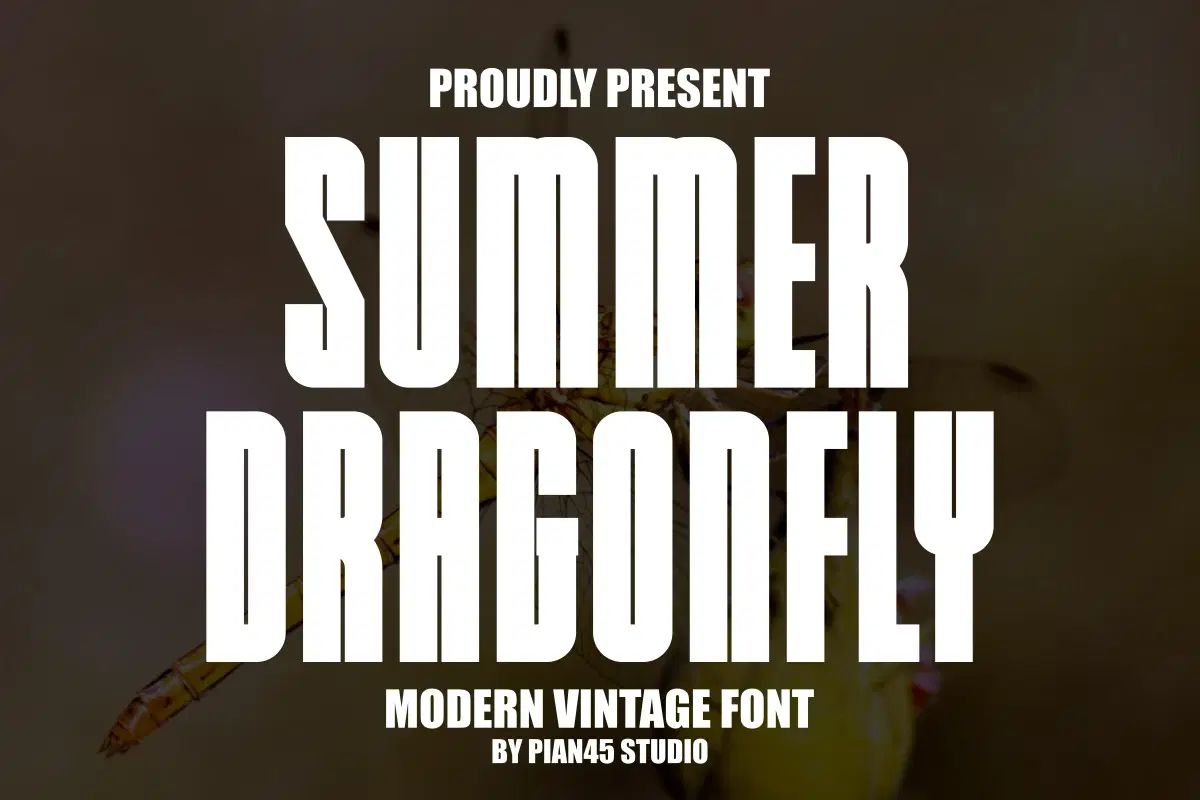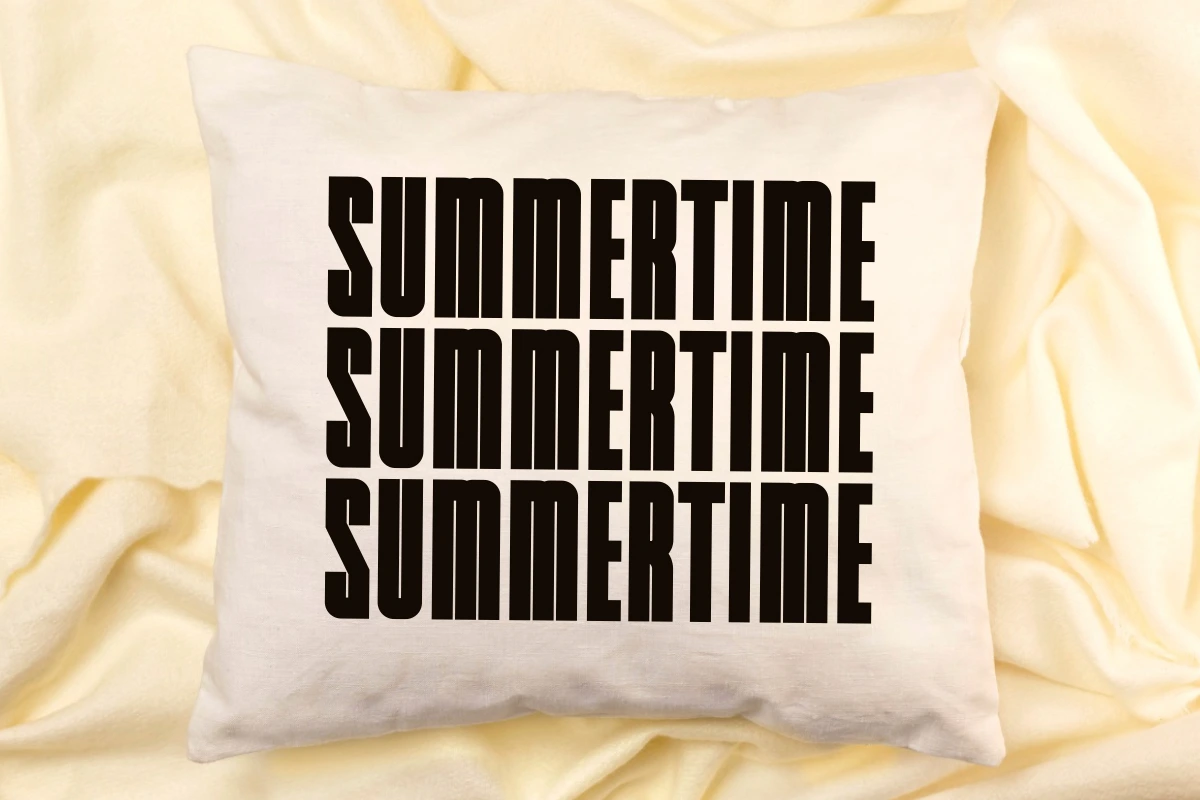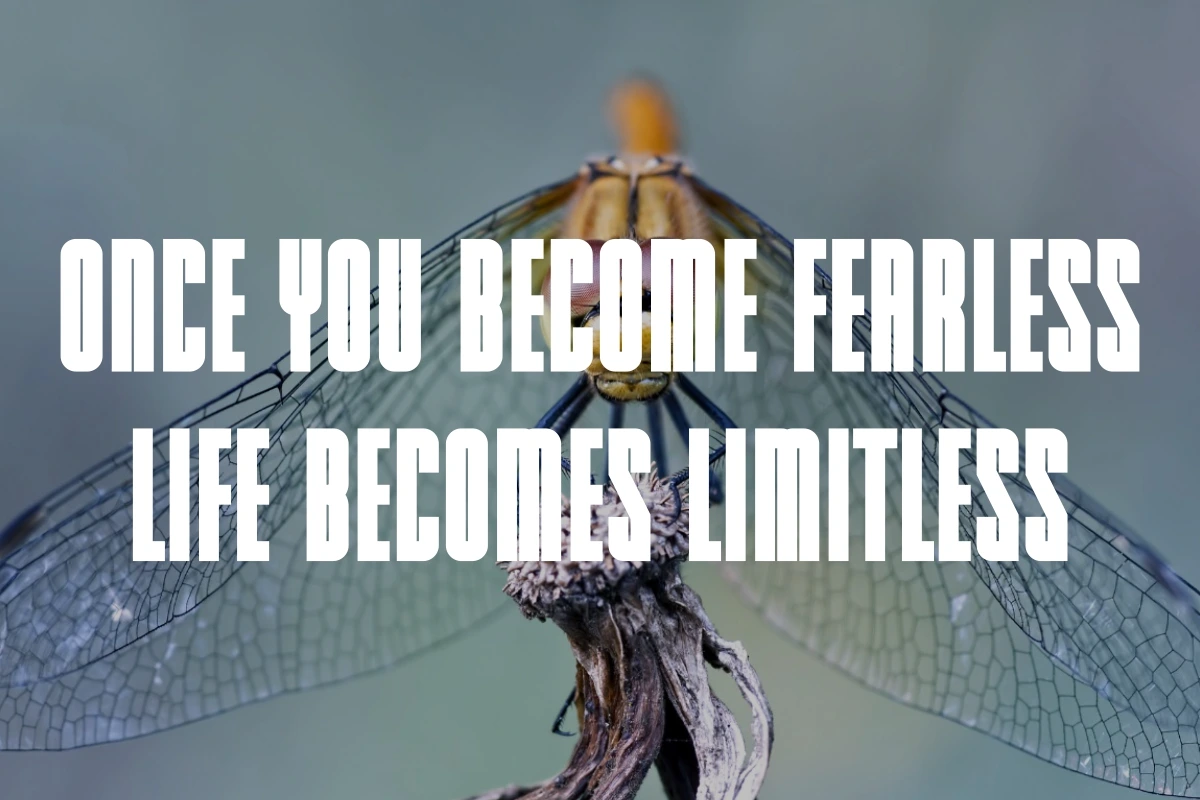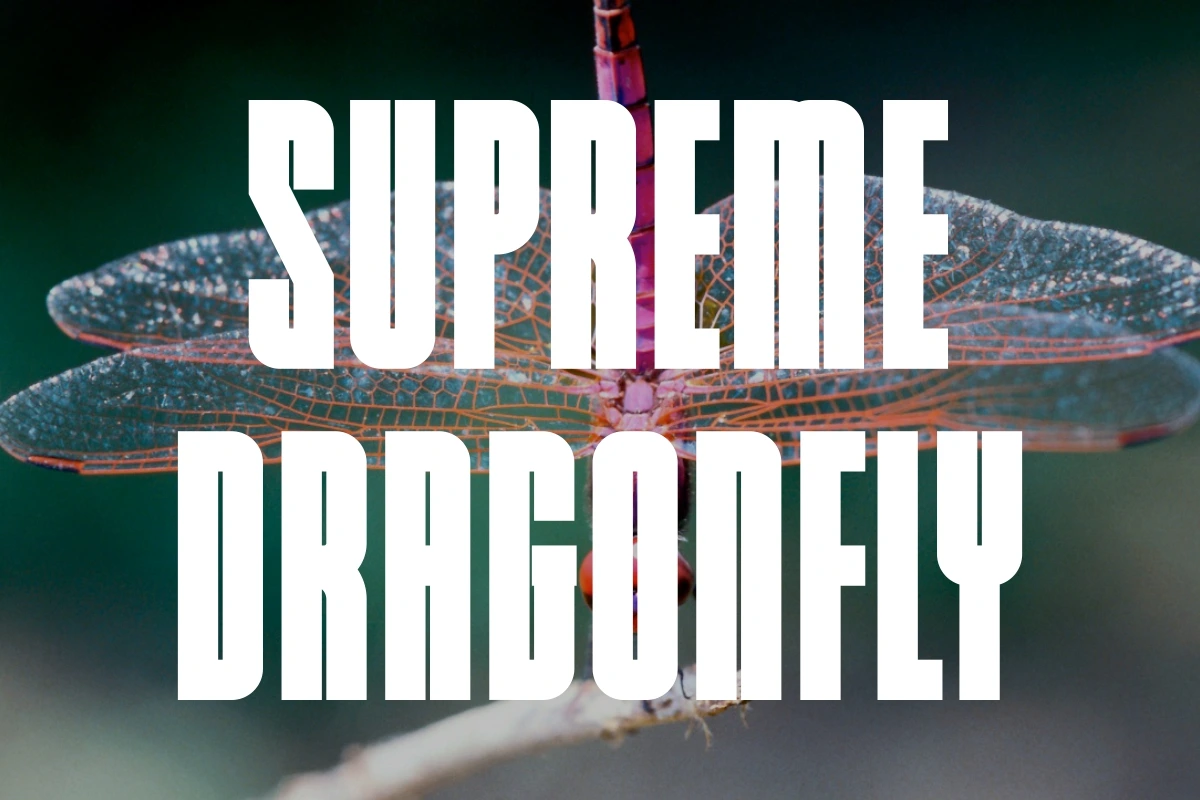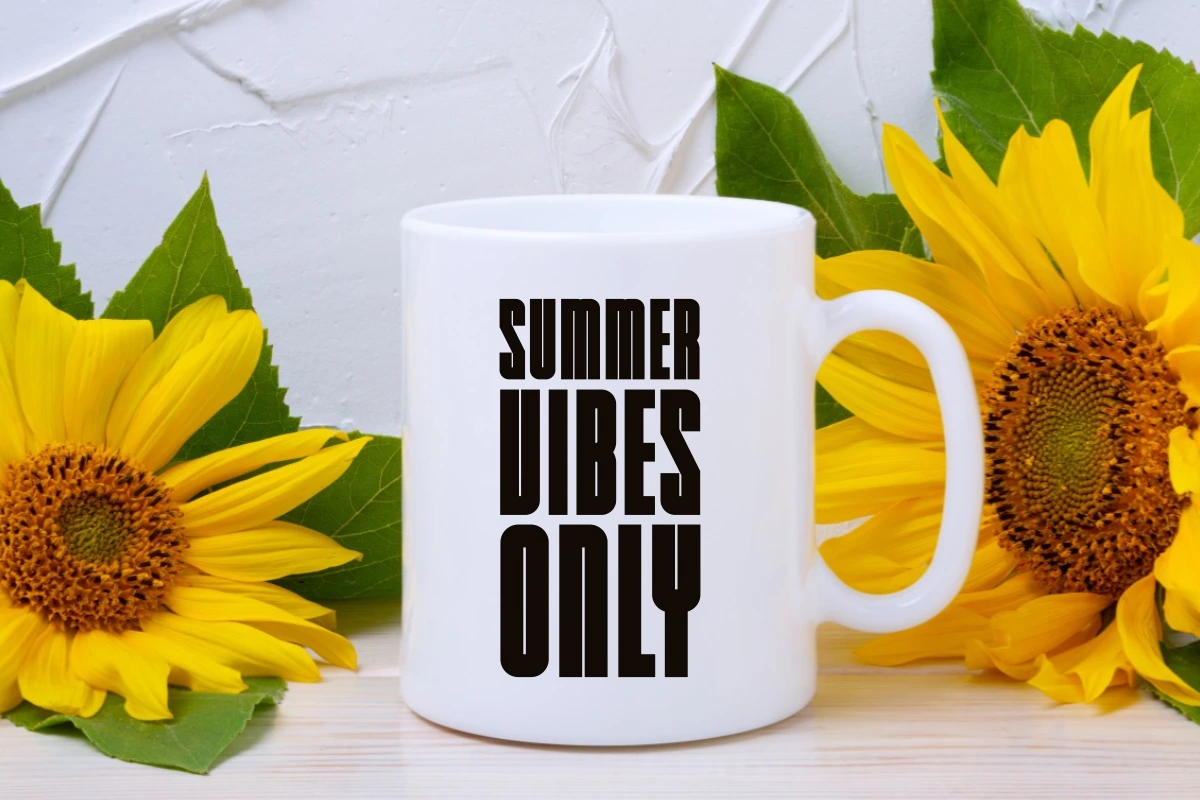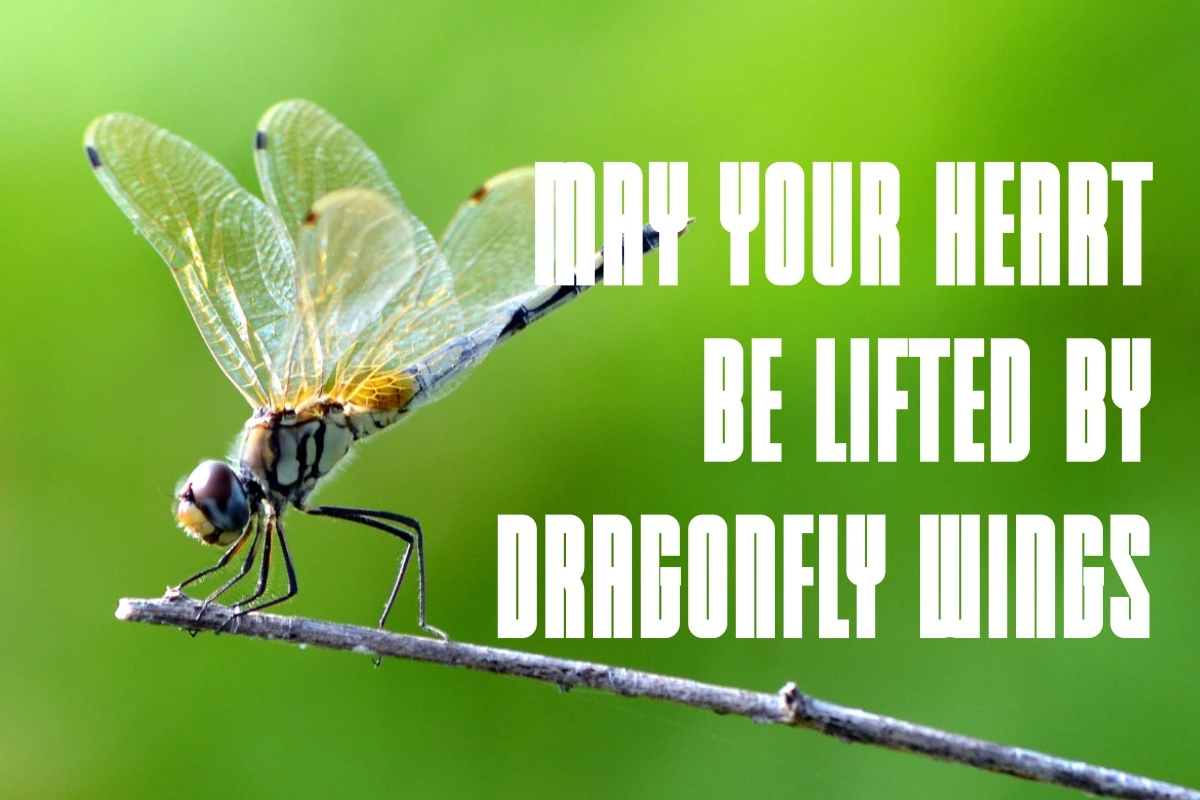
Summer Dragonfly - Modern Vintage Font
Catch the ultimate Summer Vibes with Summer Dragonfly! ☀️ This ultra-tall, Modern Vintage Font is a commanding all-caps display typeface designed for high-impact headlines. Its strong, condensed form is perfect for blending a retro feel with a sleek, modern aesthetic. Ideal for T-shirts, summer event posters, beach branding, travel journals, and striking social media graphics. Give your projects that refreshing, nostalgic summer energy!